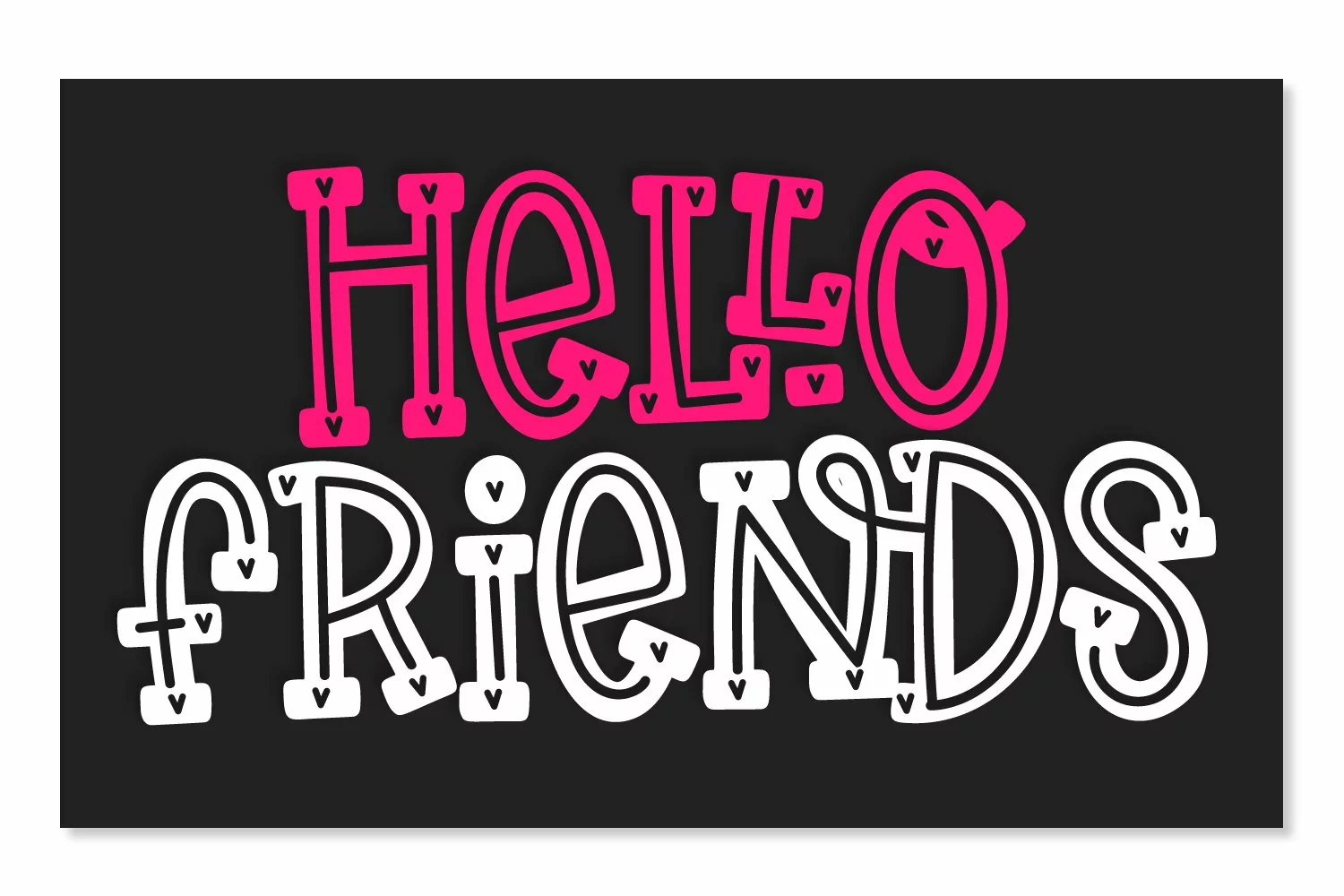
Tingle Tangle - A Christmas Font Quad!
Versions Include:
Plain base font
Hearts & Lines already carved out
Just hearts & lines so that you can layer different colors. :)